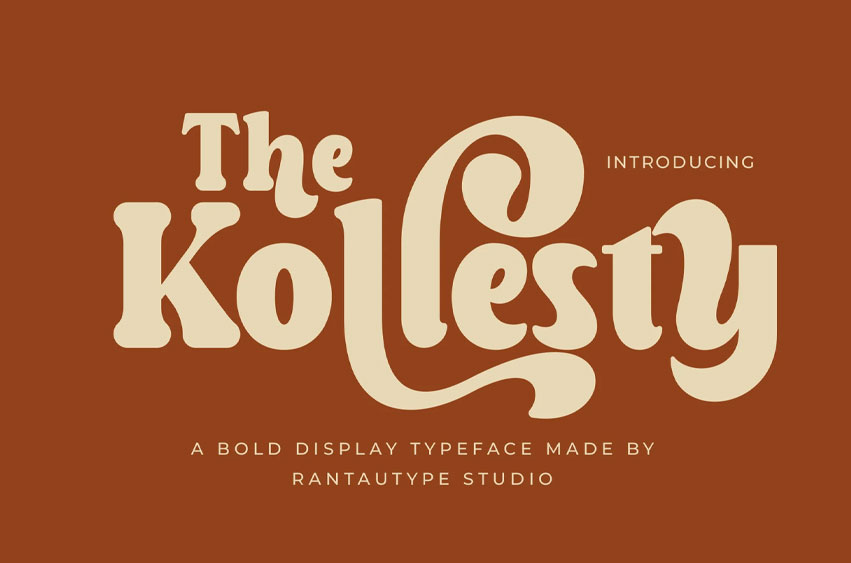
Kollesty Font is bold display font with rounded forms and expressive retro character.
Kollesty is a perfectly choice for any creative endeavor, creating, modern, lifestyle design such as logotype, title, cover, display and magazine, social media posts, advertisements, printed quotes, product packaging, corporate brand, product designs, labels, photography, watermarks, special events and any other project with retro touch.
• Alternate
• Support Multilingual Character